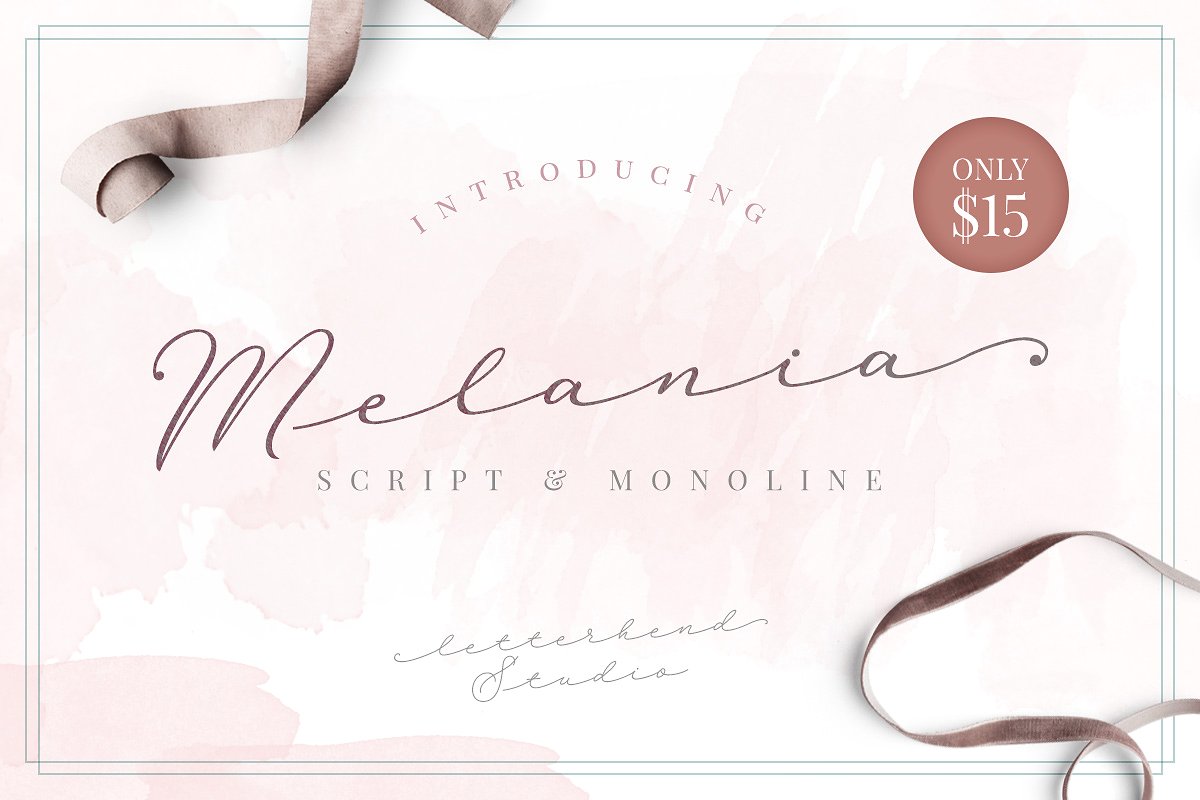
Melania Script Font
This sophisticated and elegant typeface is perfect for luxury fashion branding, high-end beauty salon logos, premium cosmetics packaging, elegant wedding invitations, boutique hotel signage, fine jewelry branding, upscale spa marketing, luxury real estate materials, and exclusive event planning that requires graceful, feminine sophistication.
Melania Script Font brings excitement to design projects with its graceful calligraphic flow and refined elegance that embodies timeless sophistication and feminine beauty. The font features flowing letterforms with delicate flourishes that create an aura of luxury and exclusivity while maintaining exceptional readability. Its elegant script character and sophisticated charm make it an ideal choice for brands that want to communicate premium quality, refined taste, and feminine elegance in their distinguished communications.
The Melania Script Font family includes various elegant styles: Light, Regular, Bold, Ornate, Swash, Decorative, and Flourish versions. Each variant maintains the font's distinctive sophisticated character while providing designers with complete flexibility for creating luxurious feminine branding systems. The family also features elaborate swash capitals, elegant ornaments, beautiful ligatures, and refined decorative elements that enhance the overall graceful aesthetic.
The font's calligraphic excellence includes precision-crafted flourishes, balanced ornamental details, and superior reproduction quality that honors traditional script typography traditions. Whether you're designing for luxury fashion houses, premium beauty brands, or exclusive hospitality venues, this font delivers the refined sophistication that resonates with discerning audiences seeking authentic luxury experiences and feminine elegance.
For creative professionals working in luxury and feminine markets, this font represents an essential tool for creating memorable sophisticated communications. The careful attention to calligraphic detail ensures consistent brand elegance while celebrating feminine grace and luxury heritage. Download this exceptional typeface today and experience how elegant script typography can transform your projects into sophisticated brand experiences that embody feminine beauty and inspire lasting appreciation for refined luxury aesthetics.